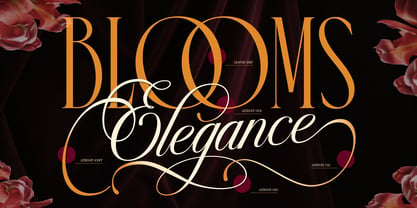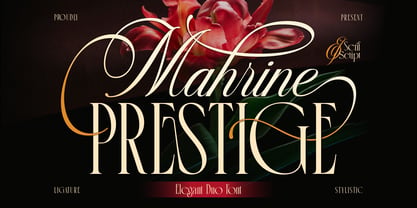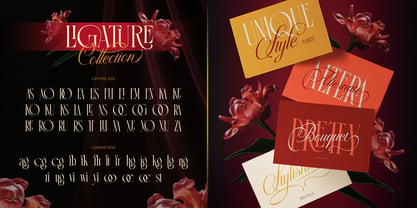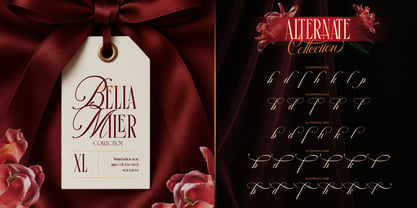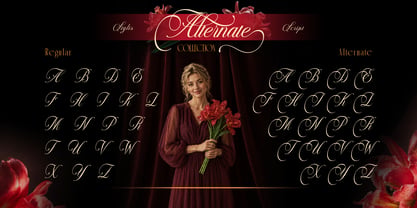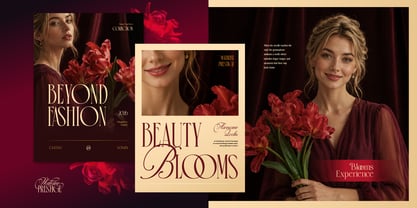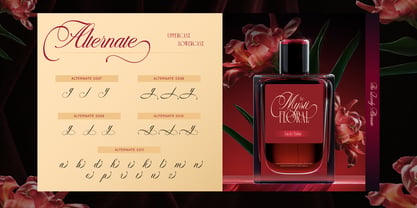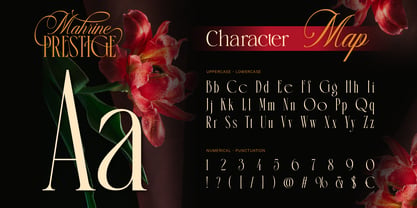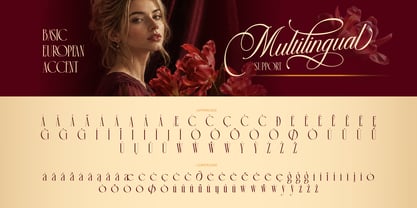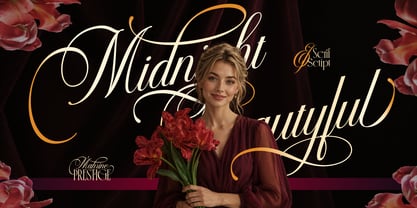
Mahrine Prestige
Mahrine Prestige is a refined duo font that combines a high-contrast serif with a flowing script, designed to create a timeless and luxurious typographic look.
The serif features clean structure, elegant proportions, and sharp contrast, making it perfect for sophisticated headlines and editorial layouts. Meanwhile, the script brings a graceful touch with smooth curves and expressive swashes, adding personality without overpowering the design.
Together, they create a harmonious pairing that works beautifully across a wide range of creative projects.
Perfect for: Branding & logo design, Editorial & magazine layouts, Wedding invitations, Luxury packaging, Social media & marketing materials
Features: A - Z set (Uppercase & Lowercase), Number, Punctuation, Alternates, Ligatures, Multilingual